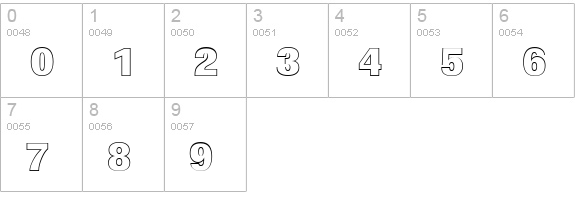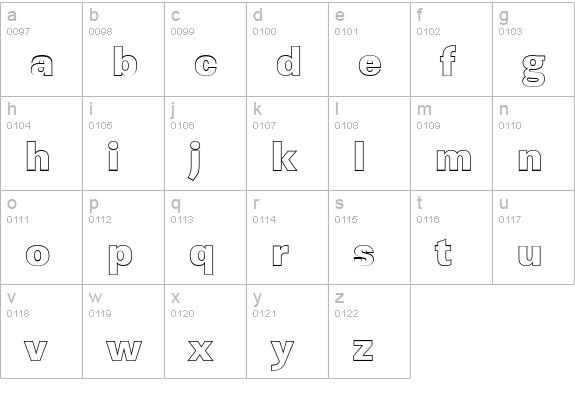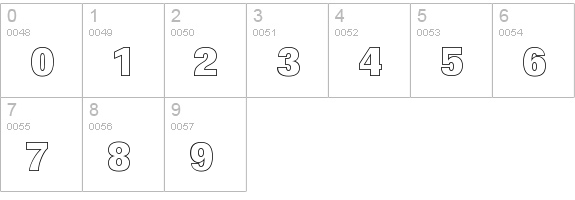
LinearOu-Heavy-Regular is a heavy, high-impact variant in the LinearOu typeface family \xE2\x80\x94 well suited to high-impact headlines, posters, and display advertising.
LinearOu-Heavy-Regular is a modern and sleek font that exudes strength and stability with its clean lines and bold presence. This font combines the elegance of a linear design with the impact of a heavy weight, making it perfect for headlines, titles, and branding projects that require a strong visual impact. The balanced letterforms of LinearOu-Heavy-Regular ensure excellent readability even at larger sizes, making it a versatile choice for both print and digital designs. Its timeless design makes it suitable for a wide range of applications, from posters and packaging to websites and social media graphics. Best of all, LinearOu-Heavy-Regular is available for free download at FontsMarket.com, allowing designers and creatives to access this high-quality font without any cost. Don't miss out on adding this versatile and powerful font to your collection today!